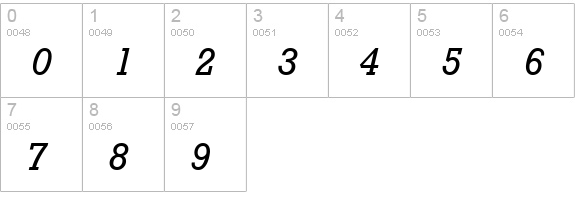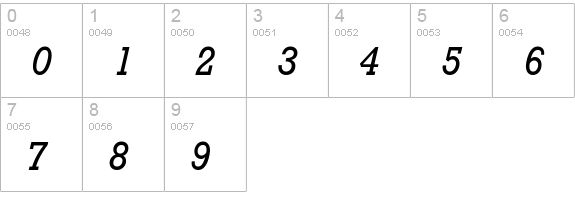
Astute SSi Italic is a distinctive, italic variant in the Astute typeface family \xE2\x80\x94 well suited to design and typography projects.
Astute SSi Italic font is a sleek and sophisticated typeface that exudes modernity and elegance. With its sharp angles and clean lines, this font is perfect for adding a touch of refinement to any design project. The italic variant of Astute SSi adds a sense of dynamism and flair, making it ideal for use in headings, titles, and other prominent text elements. The best part? Astute SSi Italic font is available for free download at FontsMarket.com. Whether you're a professional designer looking to enhance your portfolio or a hobbyist looking to spruce up your personal projects, this font is a versatile and stylish choice. Don't miss out on the opportunity to elevate your designs with the Astute SSi Italic font - download it for free today!